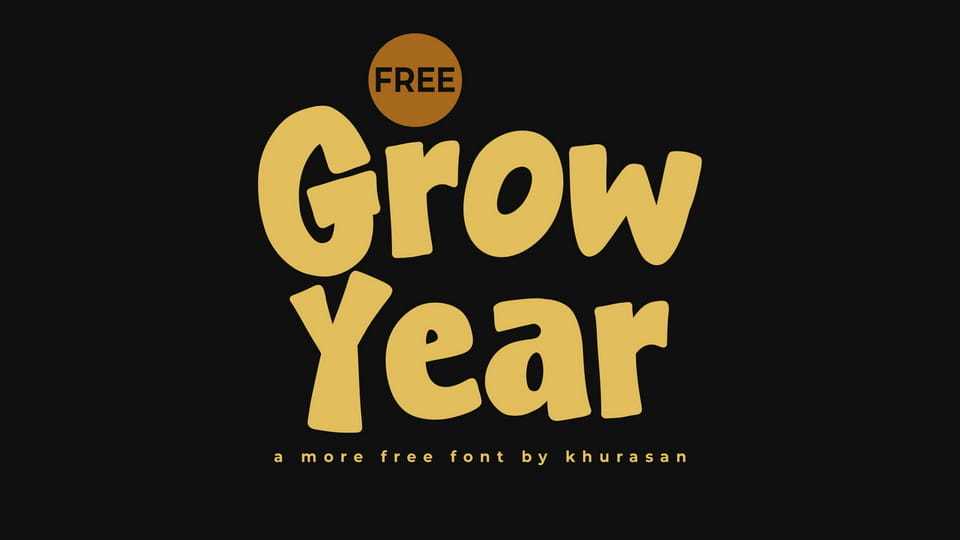
Download Grow Year font, a bold display typeface with chunky, rounded letterforms and a confident presence. Its thick shapes and soft curves create a strong yet friendly mood.